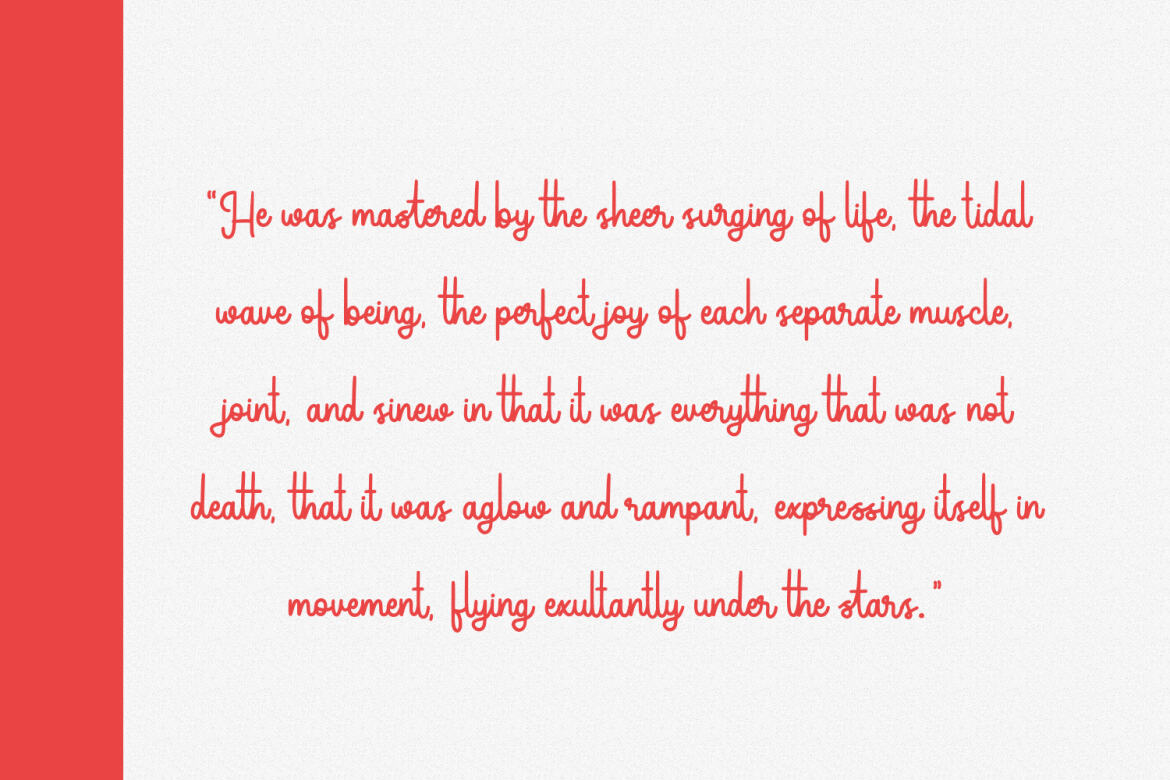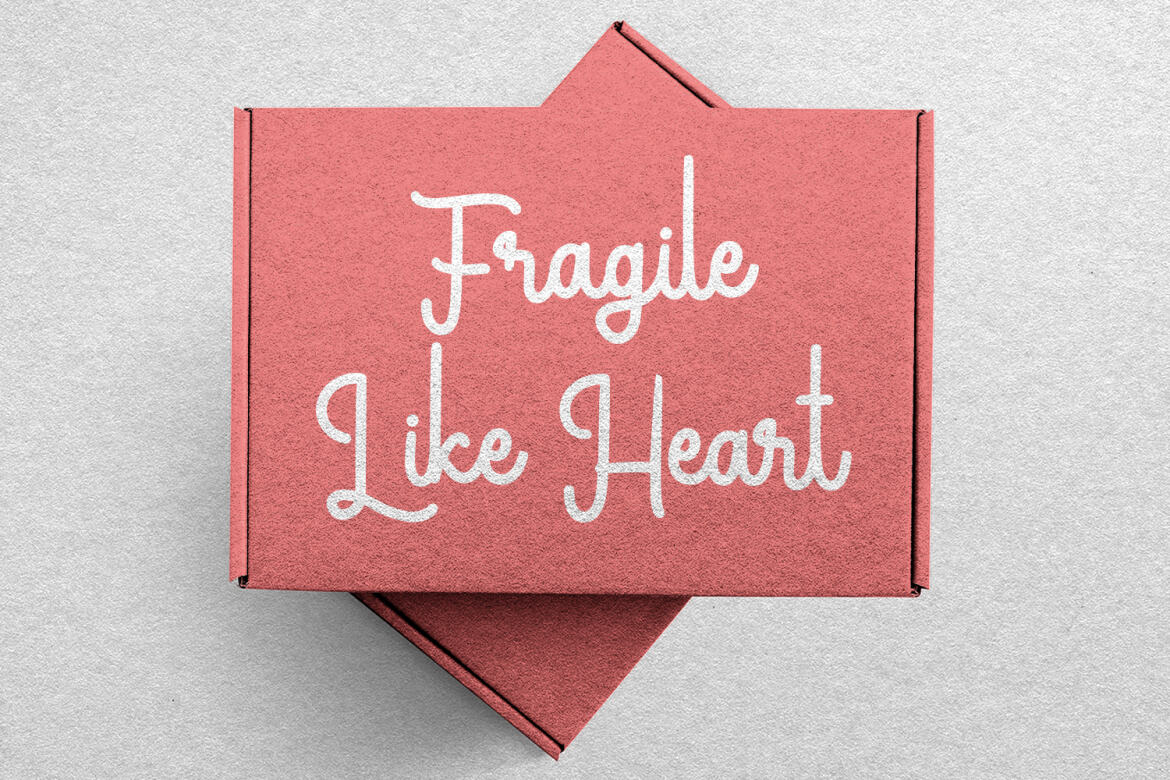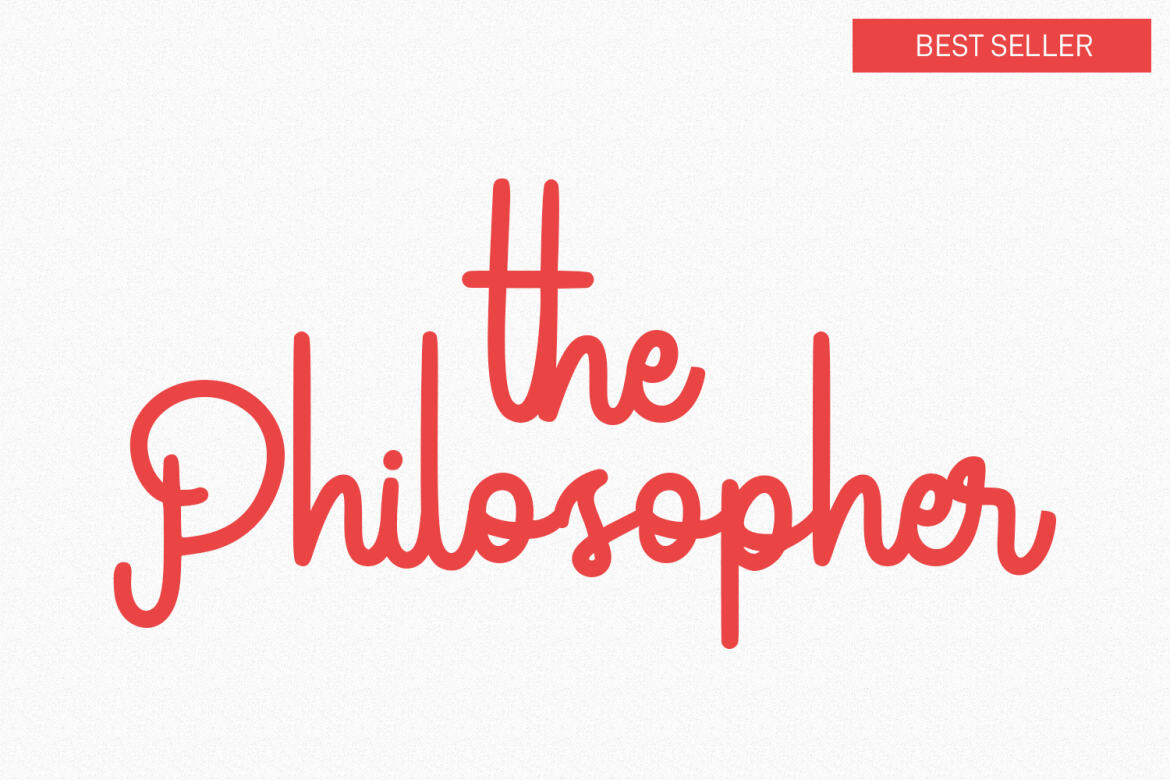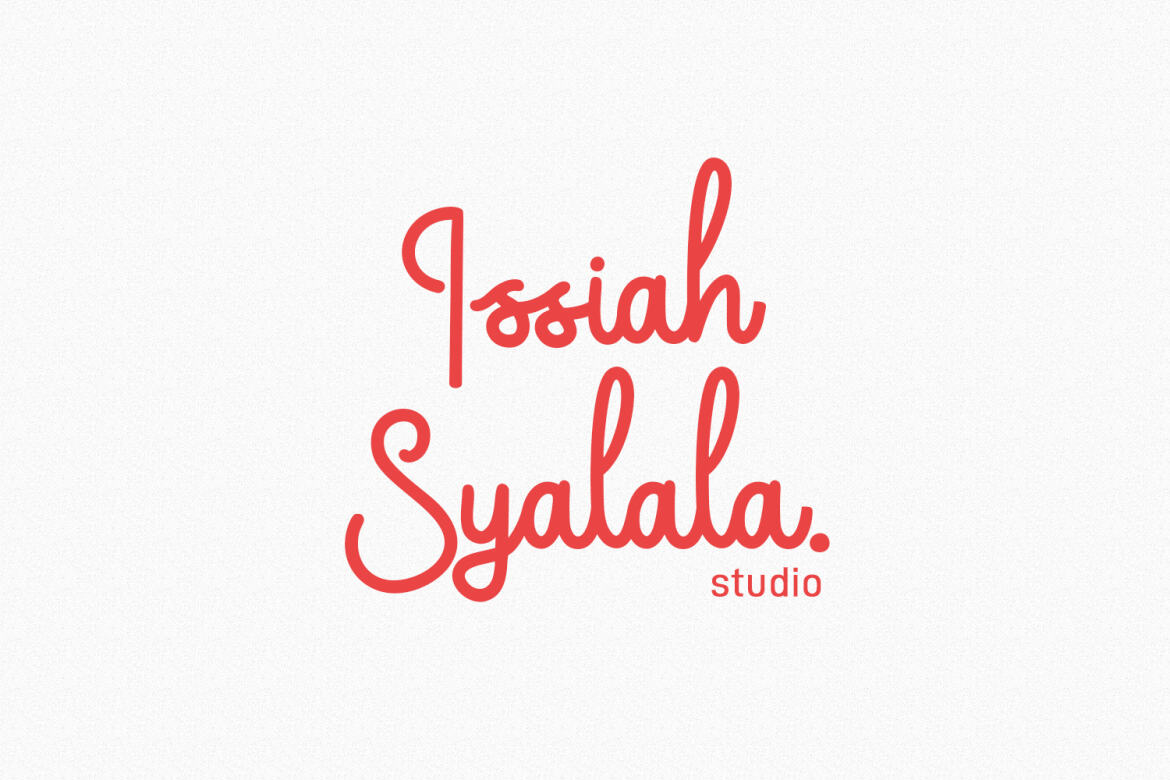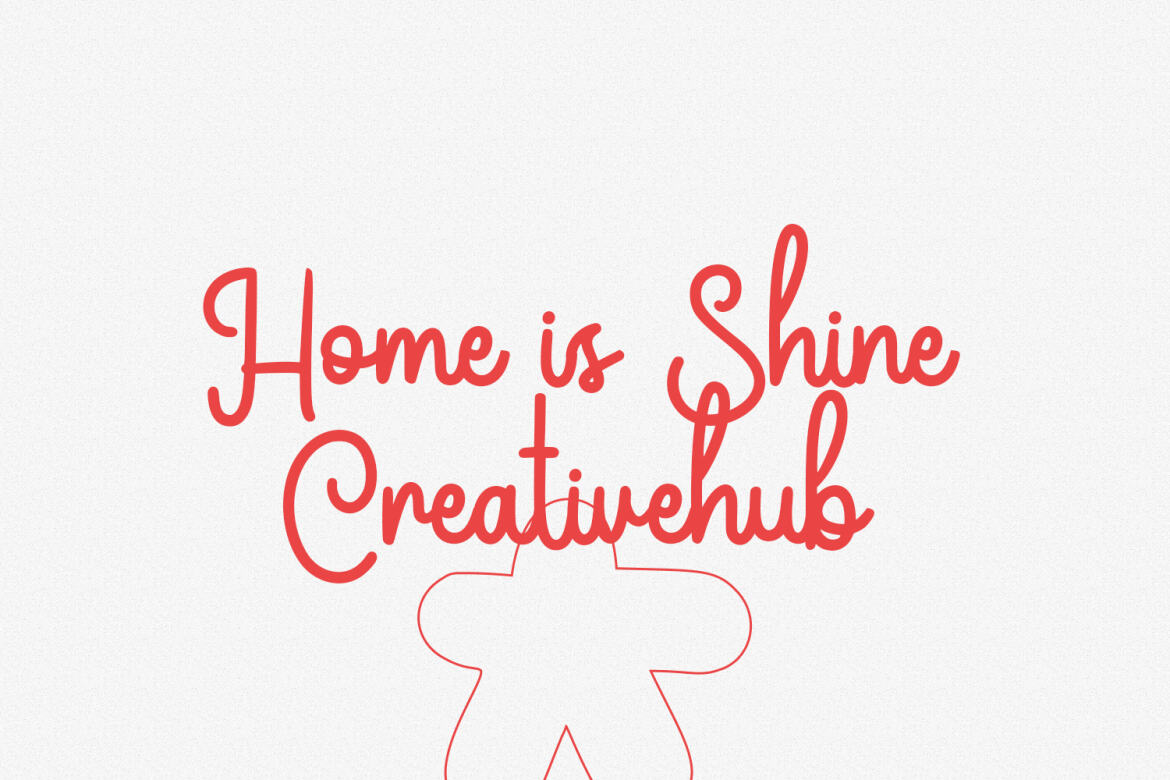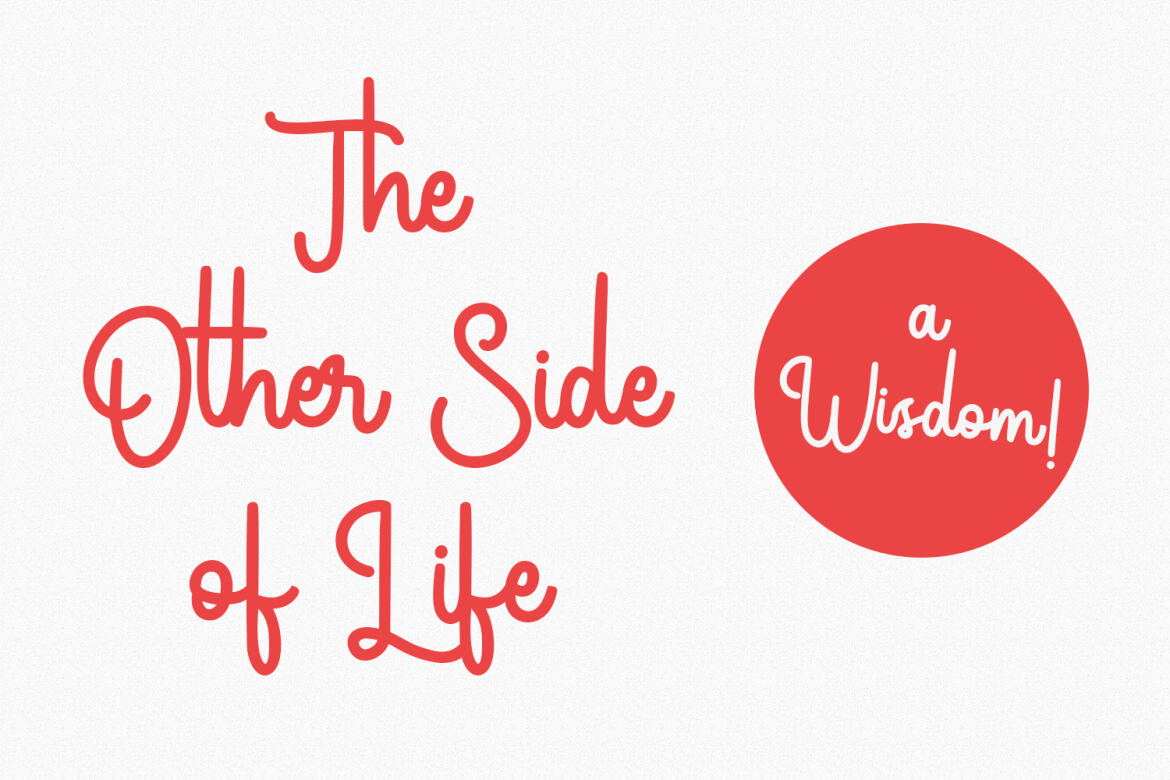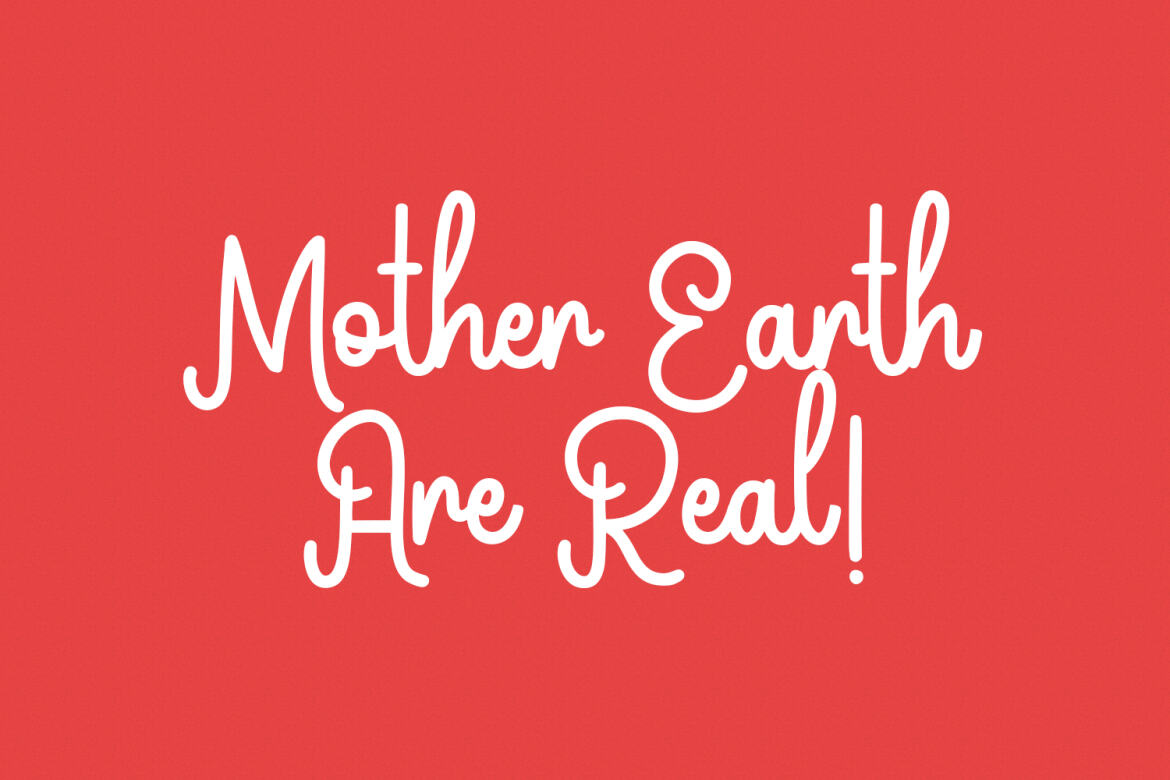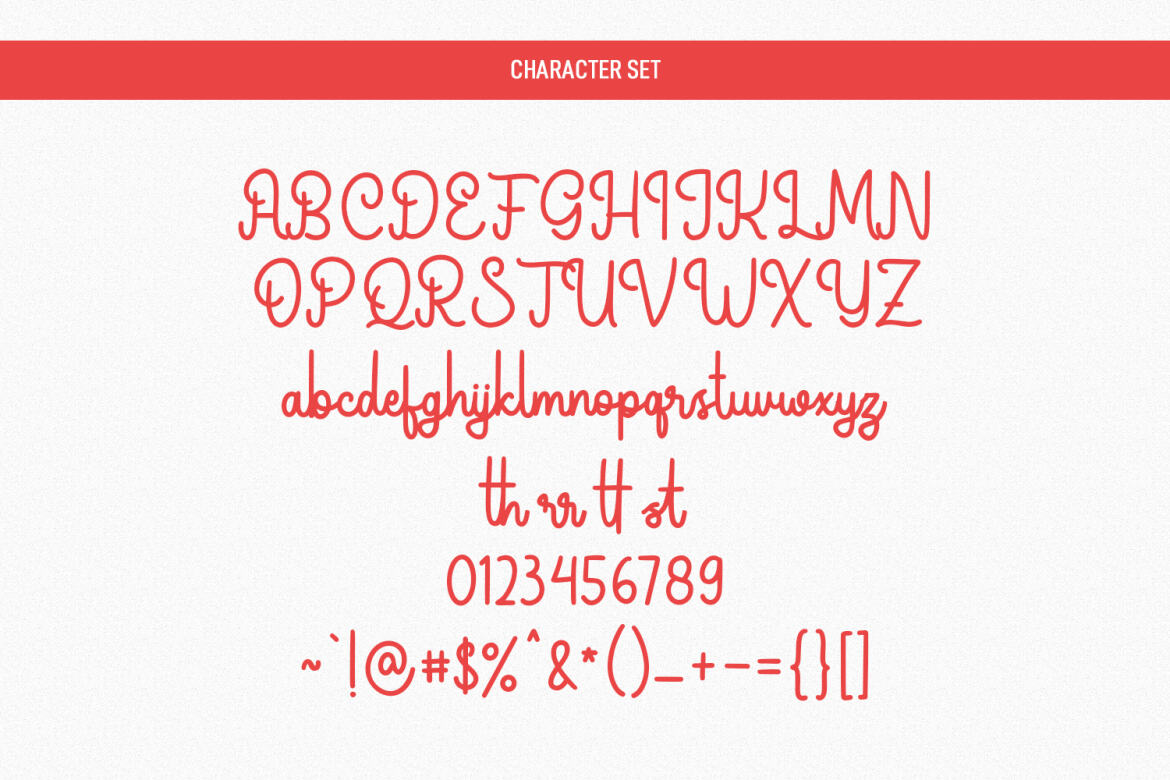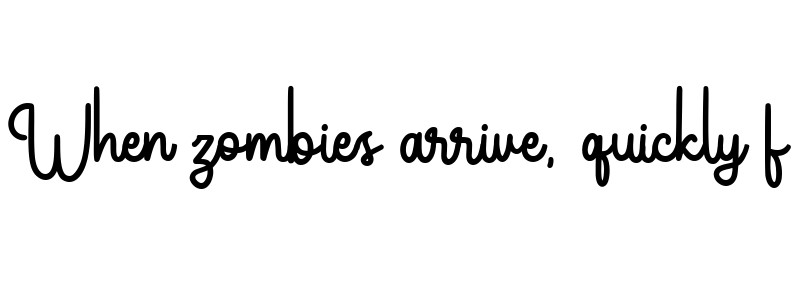
Ivory Emery - FREE Script Font
Ivory Emery
Ivory Emery is a cursive script font. With clean mono-line stroke, fun character with a bit of ligatures. To give you an extra creative work. Ivory Emery font support multilingual more than 100+ language. This font is good for logo design, Social media, Movie Titles, Books Titles, a short text even a long text letter and good for your secondary text font with sans or serif. Make a stunning work with Ivory Emery font.